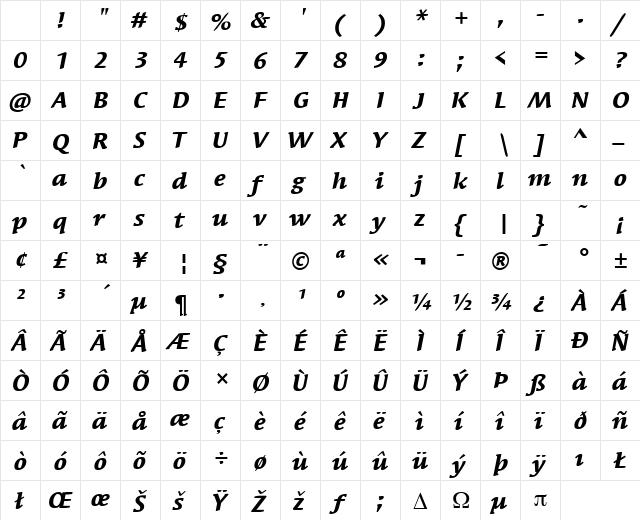
Complete SyndorITC Bold Italic glyph index. Displaying only characters natively supported by SyndorITC Bold Italic font.
SyndorITC is a composed and adaptable typeface that performs quietly and consistently across a wide range of design contexts. The slanted form adds forward momentum and visual energy. Its bold stroke weight gives it real presence on the page.
Pro Tip: Use SyndorITC for emphasis, pull quotes, and subheadings where its slanted energy can add rhythm to the layout.